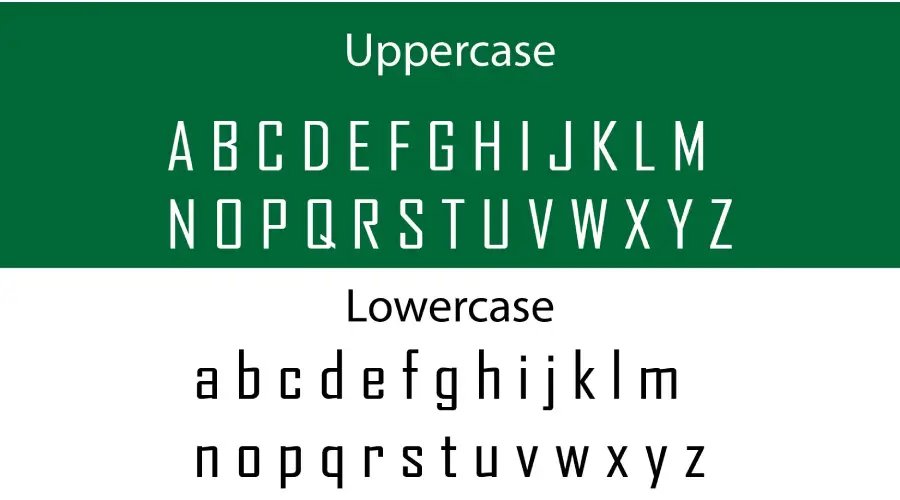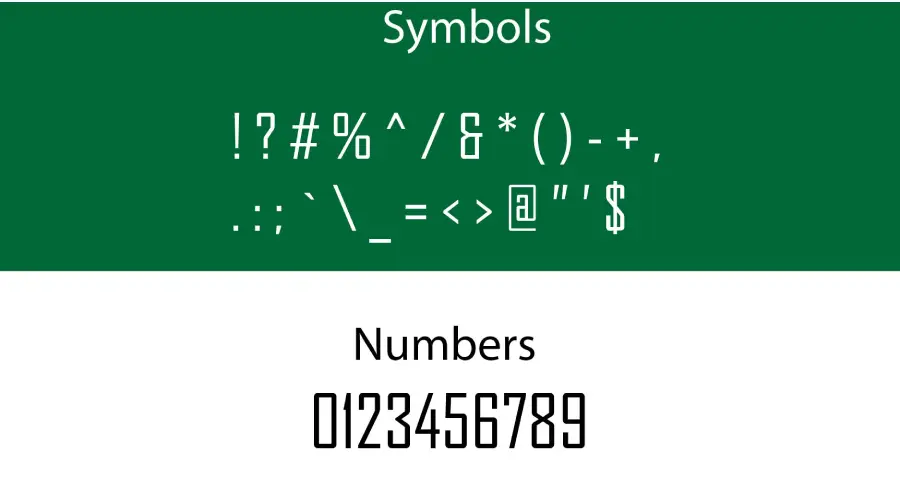
Agency FB font was inspired by the geometric and industrial style of the early 20th century. The font was initially created in 1932 as a single-weight titling font by Moris Fuller Benton. It was later expanded and digitized by David Berlow of the Font Bureau in 1990. He introduced lowercase characters and a broader range of widths and weights. The extended design resembles Benton’s iconic Bank Gothic font.
Agency FB font is a sans-serif typeface with narrow, condensed letters and some square and angular shapes. It has high legibility and readability thanks to its balanced proportions, precise curves, and open counters. The font suits various design projects, including headlines, logos, banners, and labels. It has been used in games like Crysis, movies, TV shows, and more!
Agency FB font has 26 weights, ranging from light to black, each with matching italics. The font supports the Latin and Cyrillic alphabets, memorable characters, and symbols.